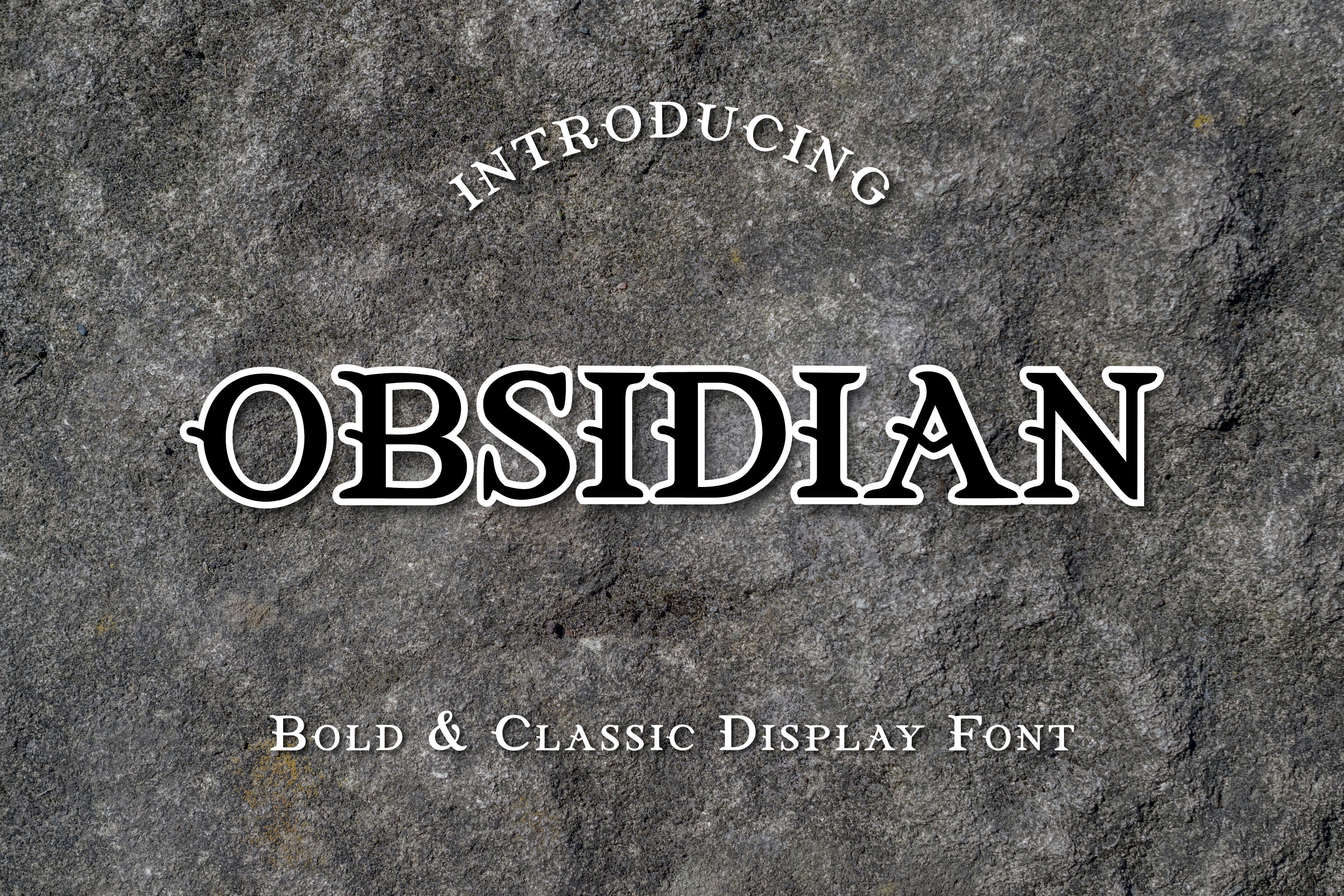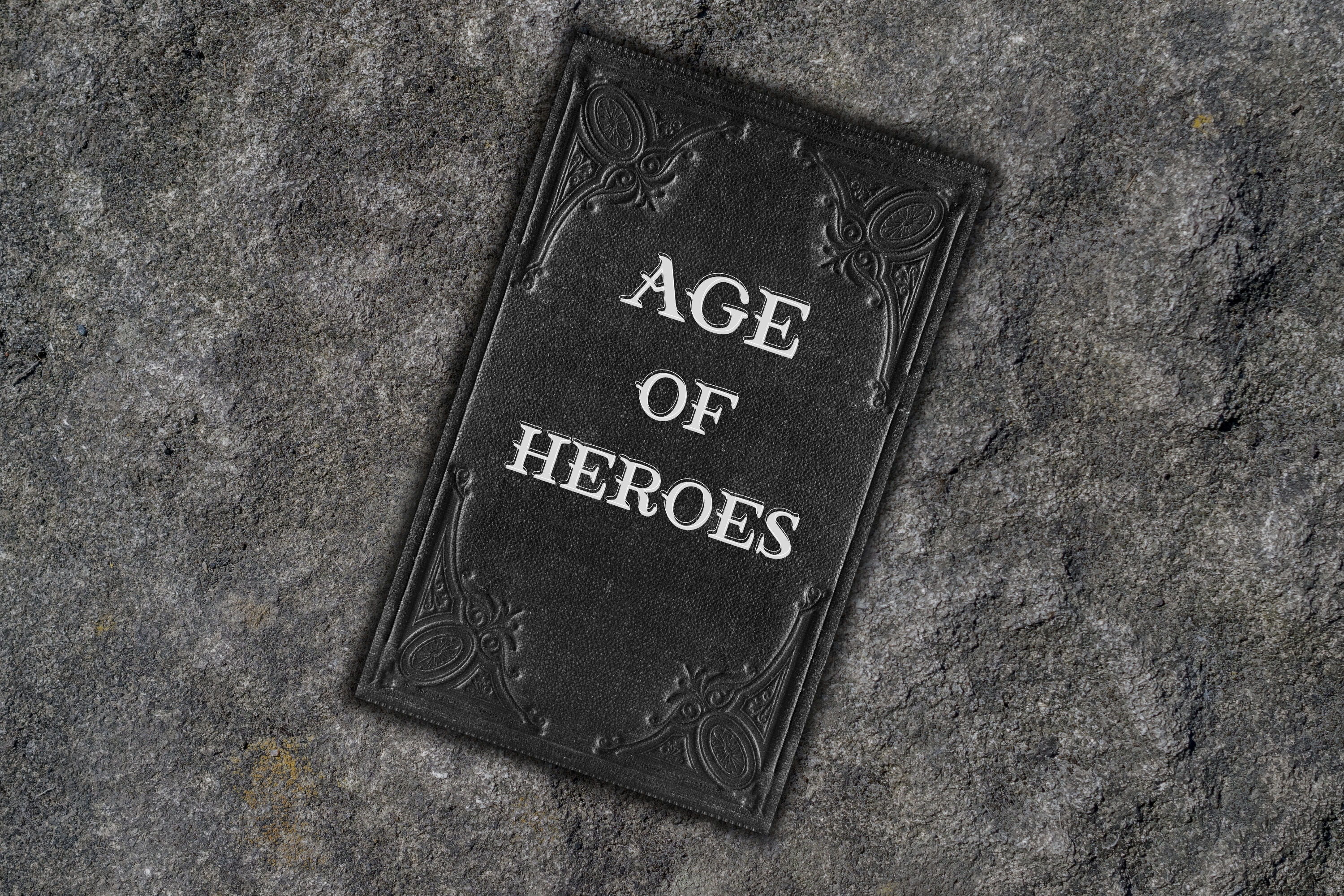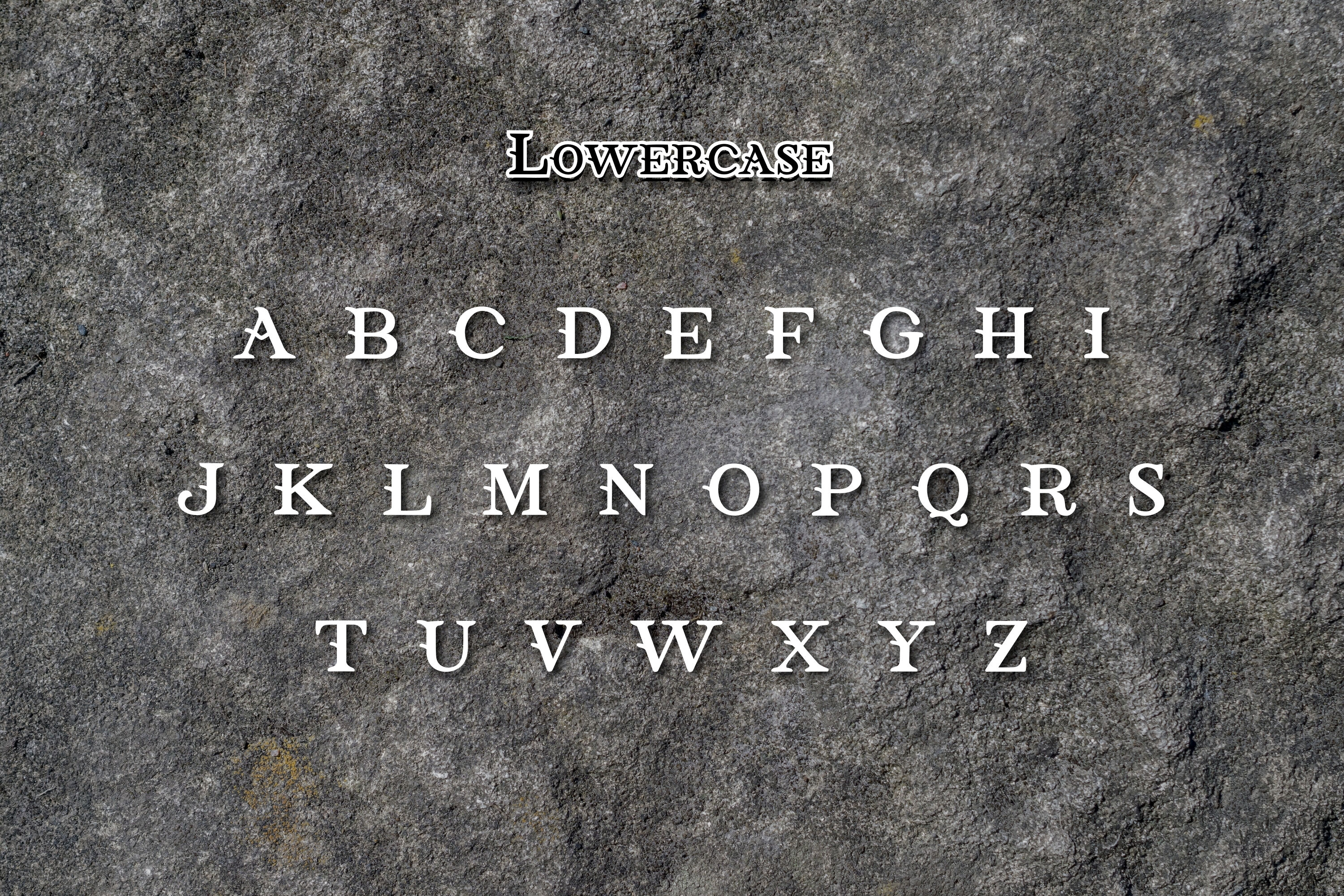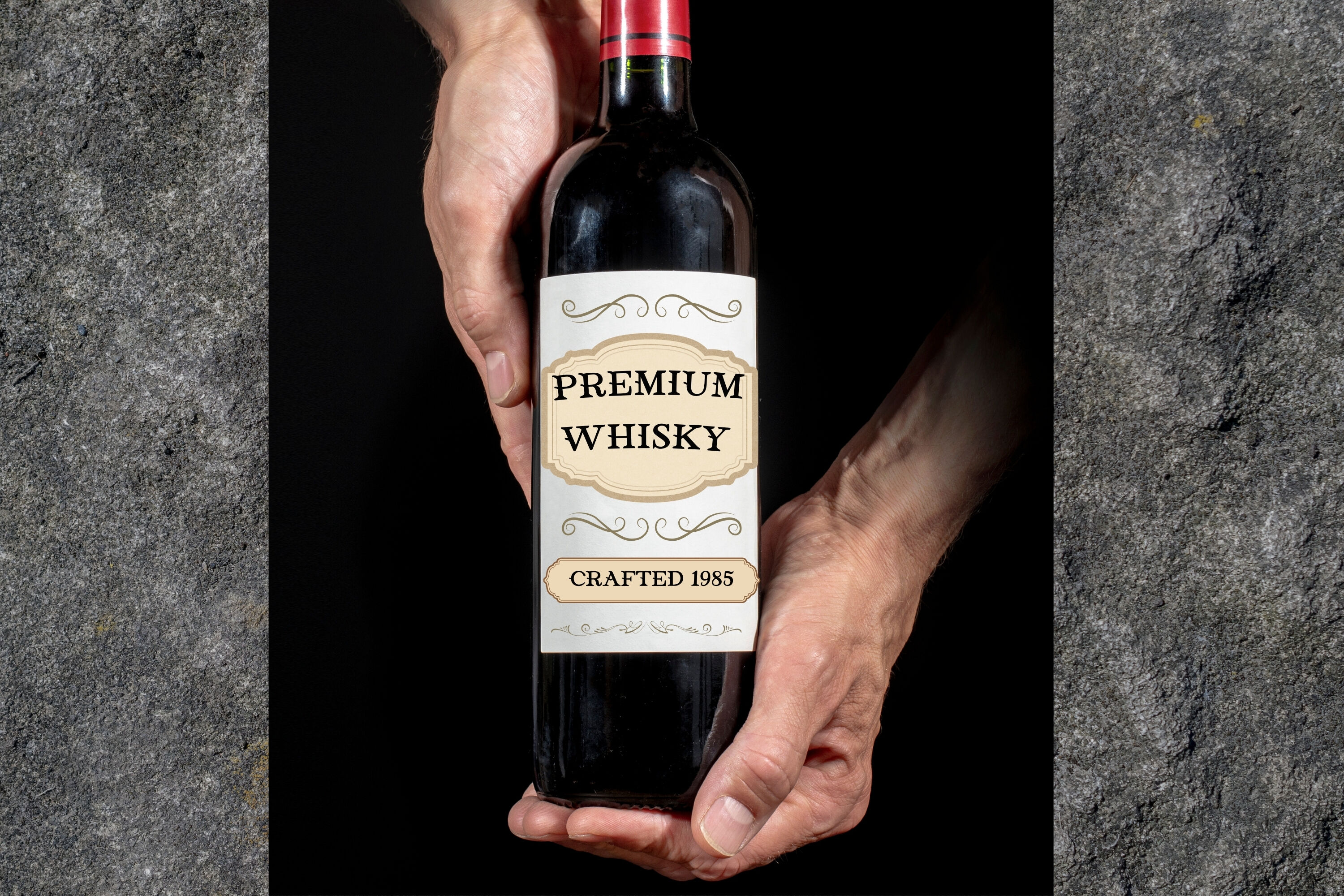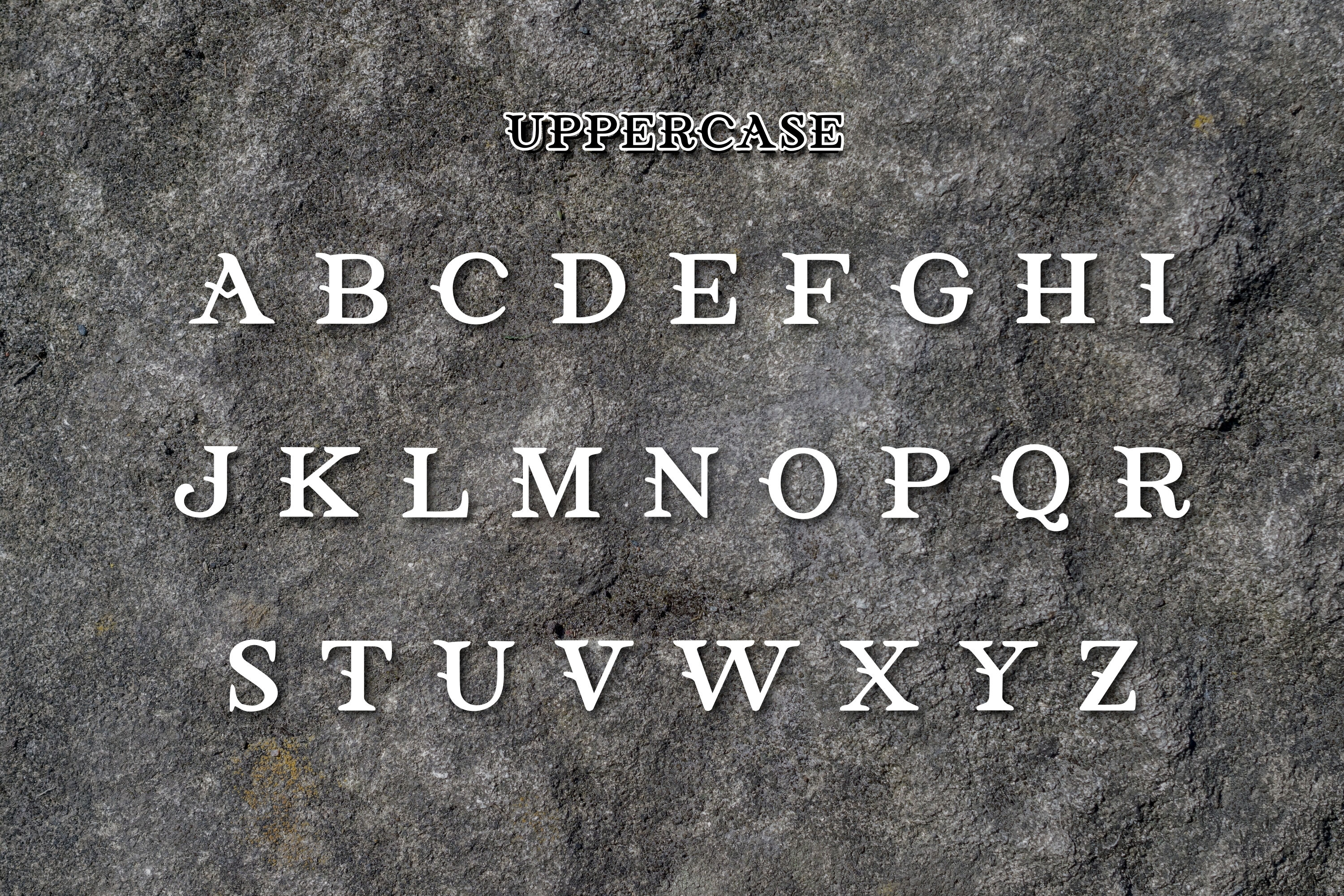
Obsidian - Bold & Classic Display Font
Obsidian is a bold and classic display font inspired by timeless vintage lettering. With its strong serif details and elegant style, this typeface is perfect for logos, posters, product labels, signage, book covers, and branding projects. This font includes uppercase, lowercase, numbers, and full punctuation — making it versatile for both digital and print use. Obsidian adds a powerful and classic touch to any creative project, whether you’re designing modern branding or vintage-inspired artwork.